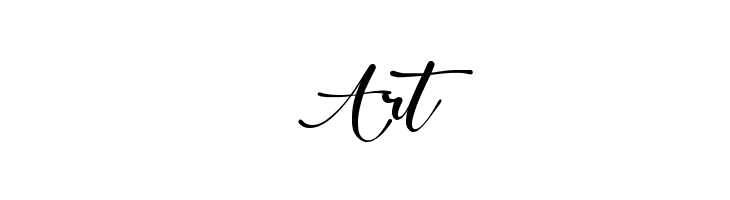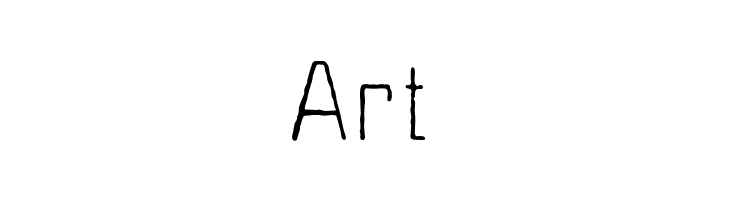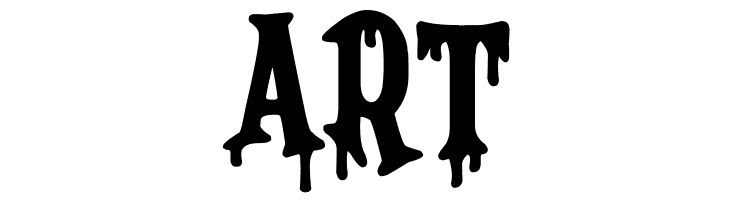
• Magical Dreams
• MagicBats
Whimsical pictorial dingbats with storybook and fantasy themes.
• Magland
A lively cursive script font with fluid, connected letters and elegant curves.
• Magnefida
Elegant cursive font with graceful loops and swashes.
• Magnetic
A bold, distressed font with a vintage, textured appearance.
• Magnificent Nightmare
A bold, dripping font perfect for spooky or horror-themed designs.
• Magnus Handwriting
• Maiers Alte Nr.8 Reduced Bold
A bold, distressed font with a vintage, handcrafted look.
• Maiers Alte Nr.8 Reduced Light
A hand-drawn, monoline font with a rustic and organic feel.
• Maiers Neue Nr.8 Reduced Black
A bold, geometric font with strong, angular lines and a modern aesthetic.